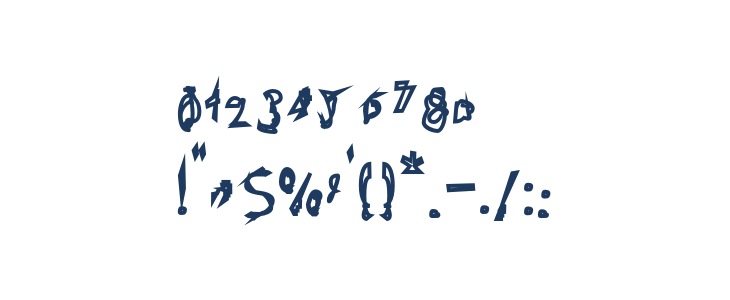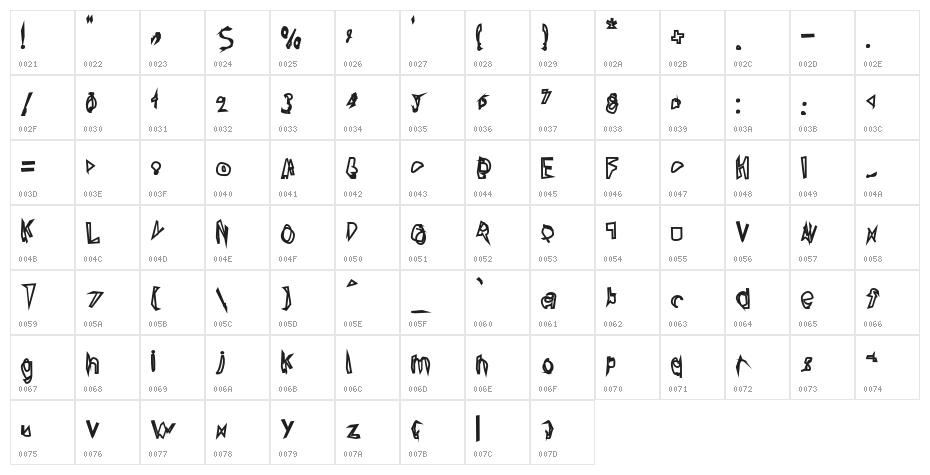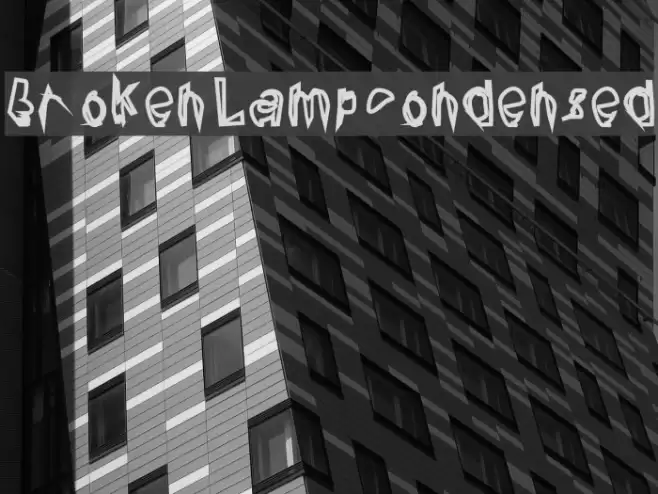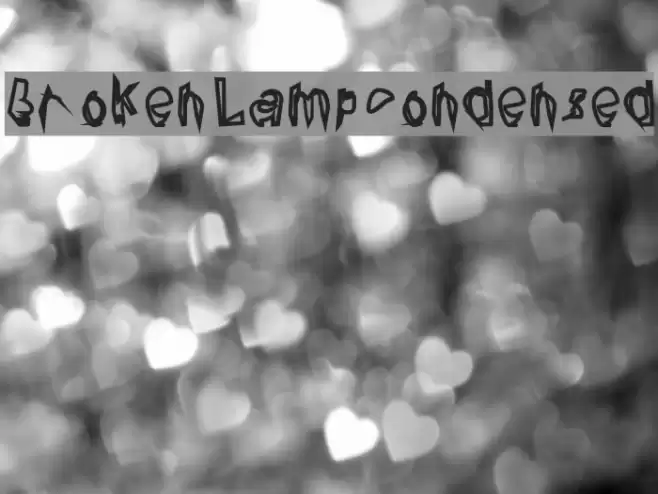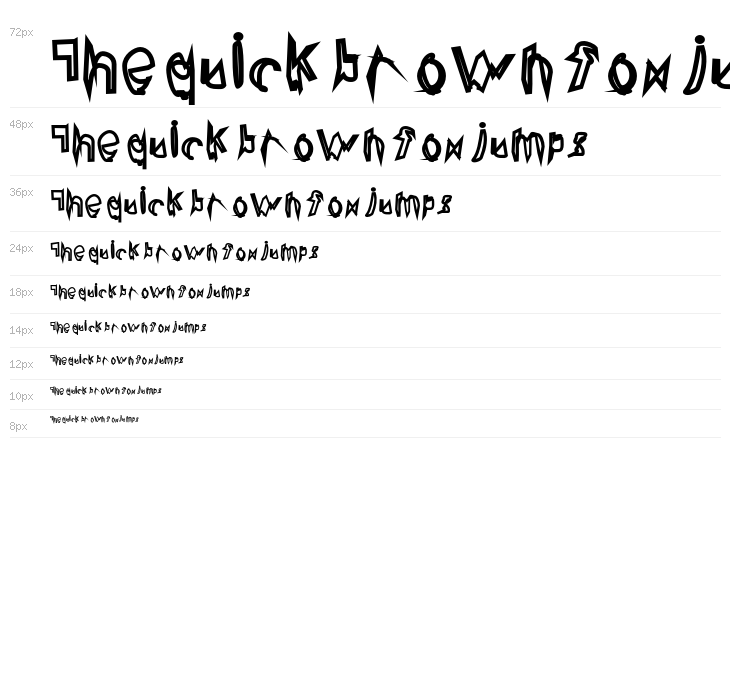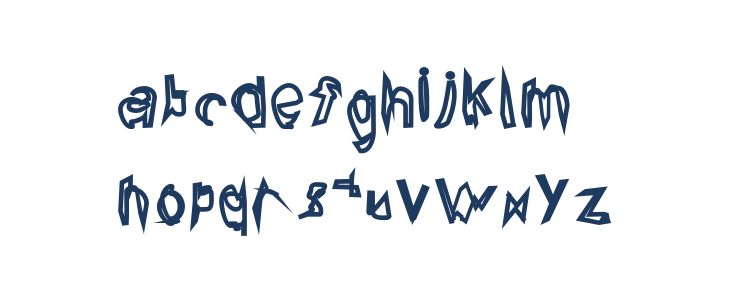
Broken Lamp Condensed Font
Broken Lamp Condensed Description
This font exhibits a highly stylized and abstract design, characterized by sharp angles and irregular shapes that give it a chaotic yet artistic appearance. The letters are bold and condensed, with a jagged, fragmented look that suggests a sense of movement and energy. The uppercase and lowercase letters maintain a consistent style, with exaggerated features and a playful, rebellious attitude. Numbers and special characters follow the same design principles, adding to the font's unique and unconventional aesthetic. This font is ideal for projects that require a bold statement and a modern, edgy vibe.
Overall StyleModern, Edgy
Proposed ProjectsIdeal for album covers, posters, street art, and edgy branding projects.